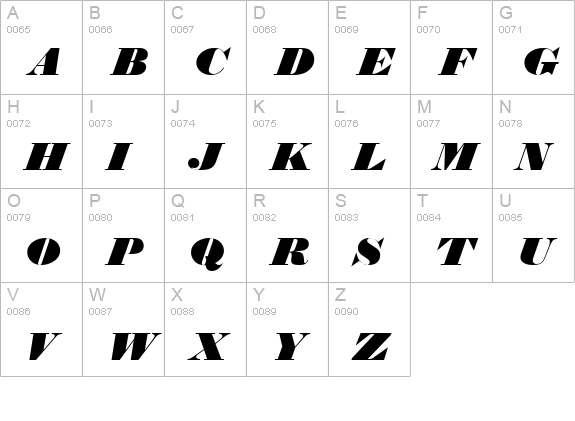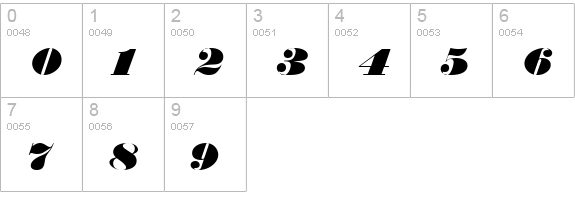
ThorowgoodDReg Italic is a distinctive, italic variant in the ThorowgoodDReg typeface family \xE2\x80\x94 well suited to design and typography projects.
ThorowgoodDReg Italic font is a stunning typeface that exudes elegance and sophistication. Its sleek and slanted design adds a touch of style and grace to any project. The italicized letterforms of ThorowgoodDReg Italic gracefully lean forward, creating a sense of movement and energy. This font is perfect for a wide range of creative purposes. Whether you're designing a wedding invitation, crafting a logo, or creating eye-catching headlines, ThorowgoodDReg Italic will elevate your work to new heights. One of the best features of ThorowgoodDReg Italic is that it is free. Yes, you read that right! This incredible font is freely available to download at FontsMarket.com. Now, you can add a touch of elegance to your designs without breaking the bank. With its smooth curves and impeccable legibility, ThorowgoodDReg Italic is a font that demands attention. Its versatility allows it to be used in both print and digital mediums. No matter where you choose to use it, this font will captivate your audience and leave a lasting impression. So, why settle for ordinary fonts when you can have ThorowgoodDReg Italic? Download it today from FontsMarket.com and unleash your creativity.